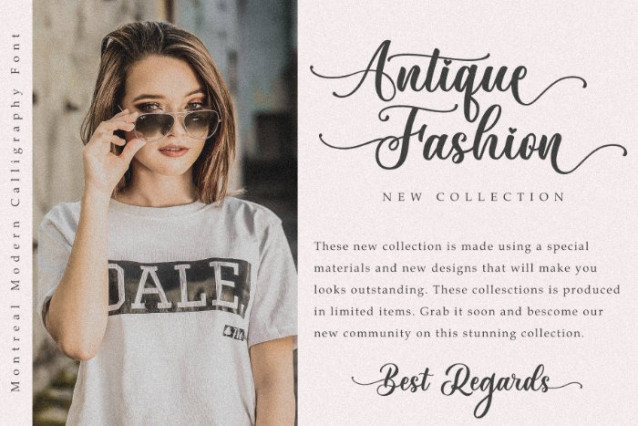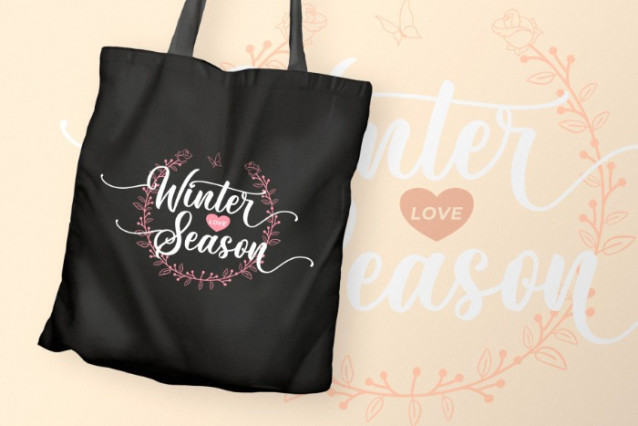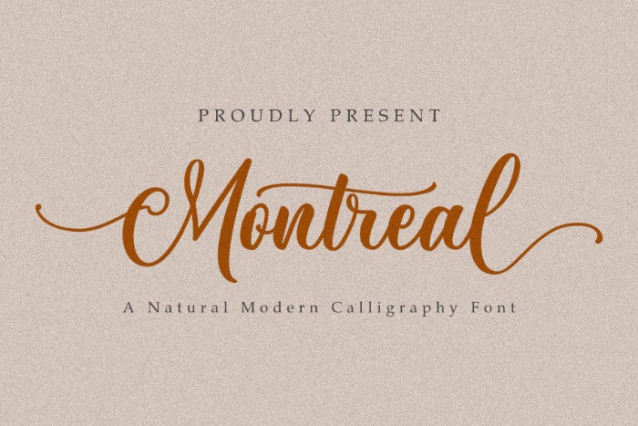
Montreal Script Font
Montreal Script Font is a stylish brush script font that will add some flair to your creations. Whether you are working on a logo, a banner, a poster, or any other design project, Montreal will help you achieve a unique and eye-catching look. It comes with various alternates and ligatures that will give you more options and flexibility to customize your design. You can mix and match different letters and create stunning combinations that will make your design stand out.
Montreal is perfect for any design project that requires a handwritten touch and a brush script feel. Montreal is suitable for various themes and occasions, such as weddings, birthdays, holidays, fashion, beauty, art, and more. If you are looking for a stylish brush script font with various alternates and ligatures, Montreal is the font for you.